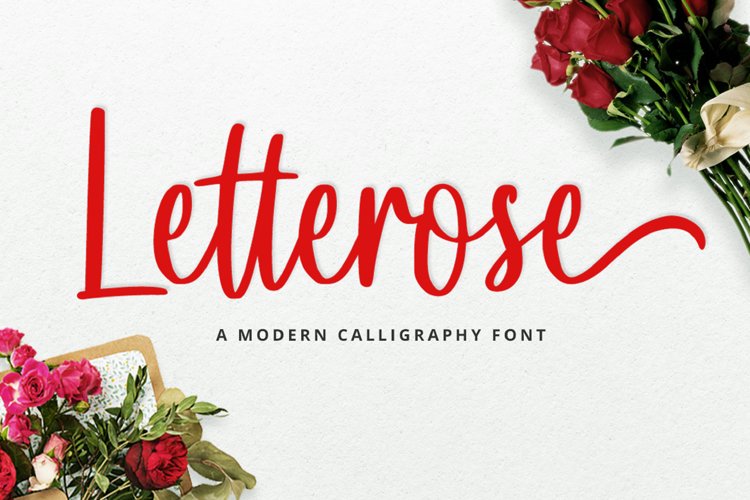
Introducing Letterose - A Calligraphy Font
Letterose Calligraphy font is designed and carefully handcrafted elegantly and gracefully for your website, for your social media branding, Pinterest banners, printed invitations, and more!
Letterose Calligraphy font will never go wrong for your audience, clients, guests or anyone around you!